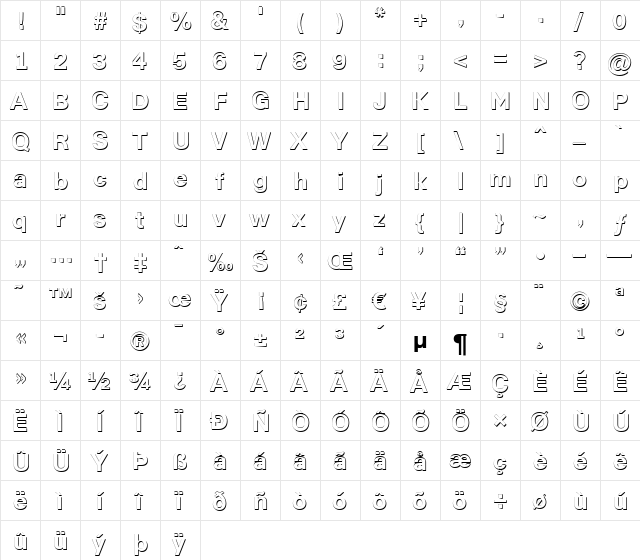
a_ReportSans3Dxtr Bold
| Designer | W.Chufarofsky & M.Slutsker |
Design Context for a_ReportSans3Dxtr Typeface
a_ReportSans3Dxtr takes a measured approach to typography — its balanced proportions and neutral character make it a reliable workhorse for both digital and print work. Its bold stroke weight gives it real presence on the page.